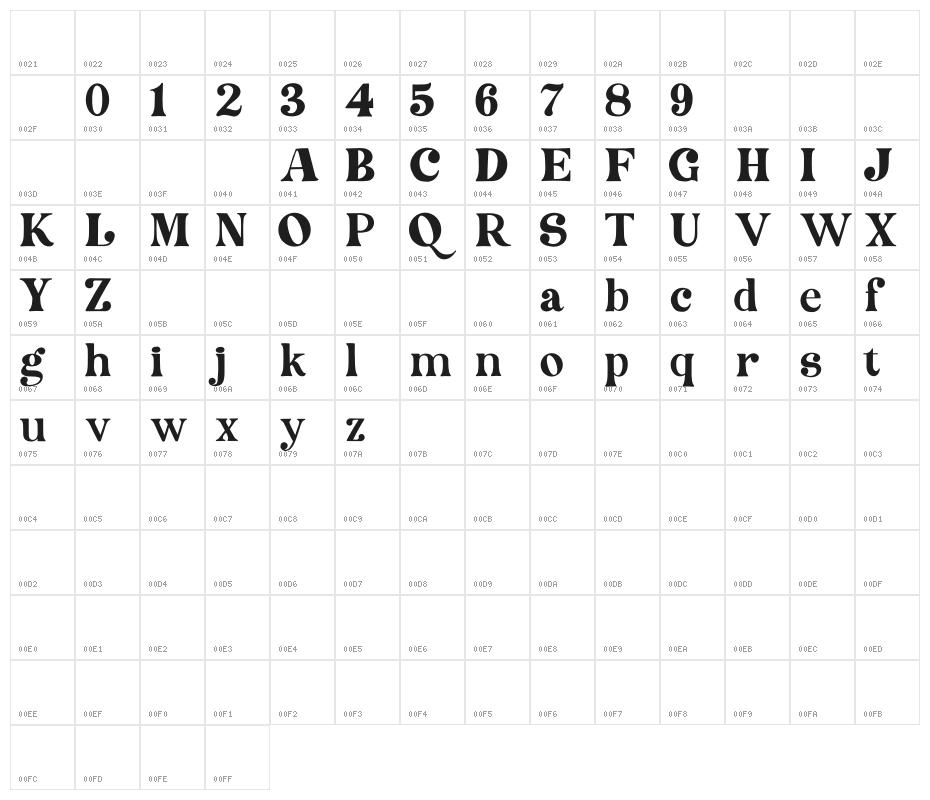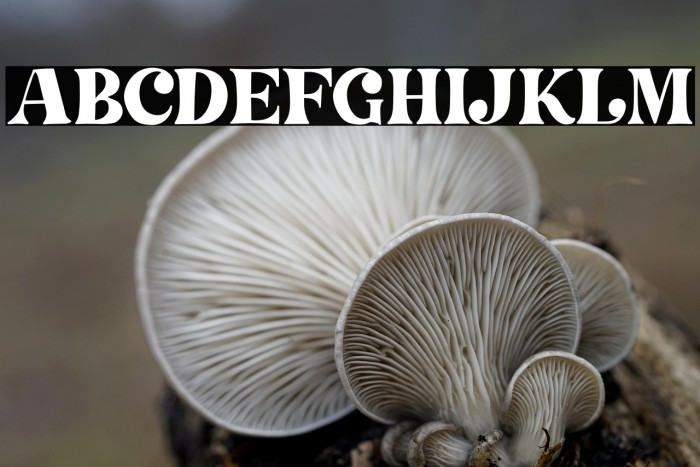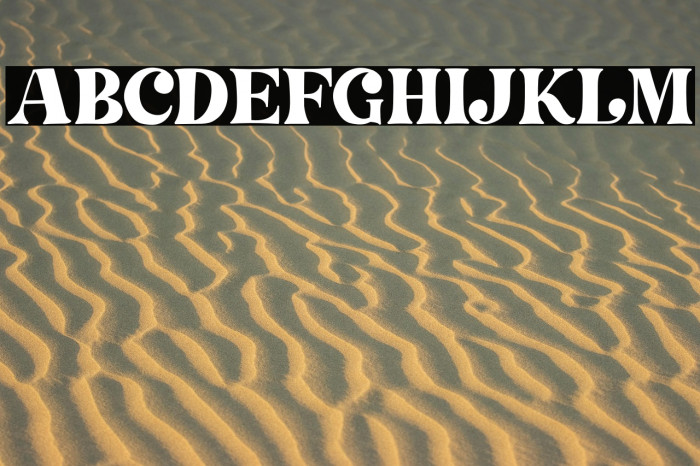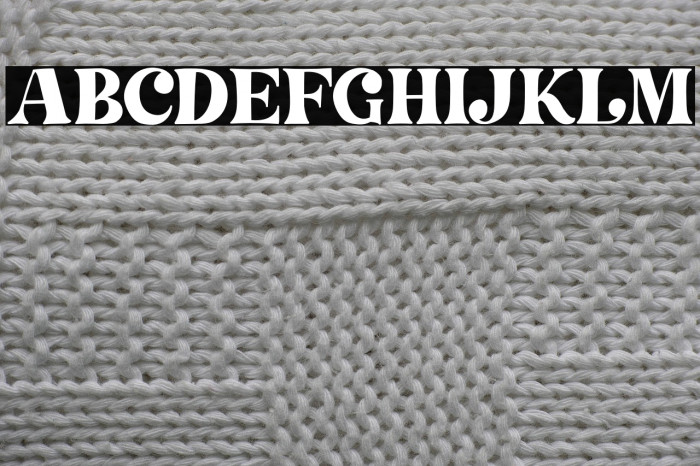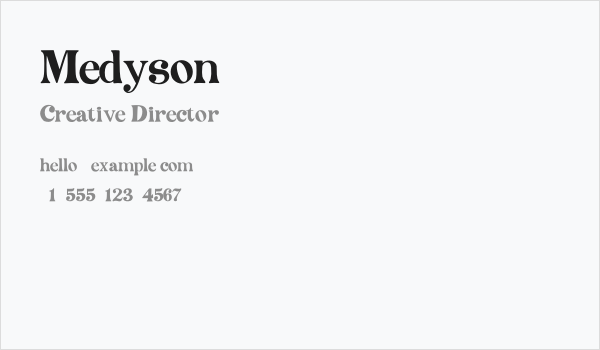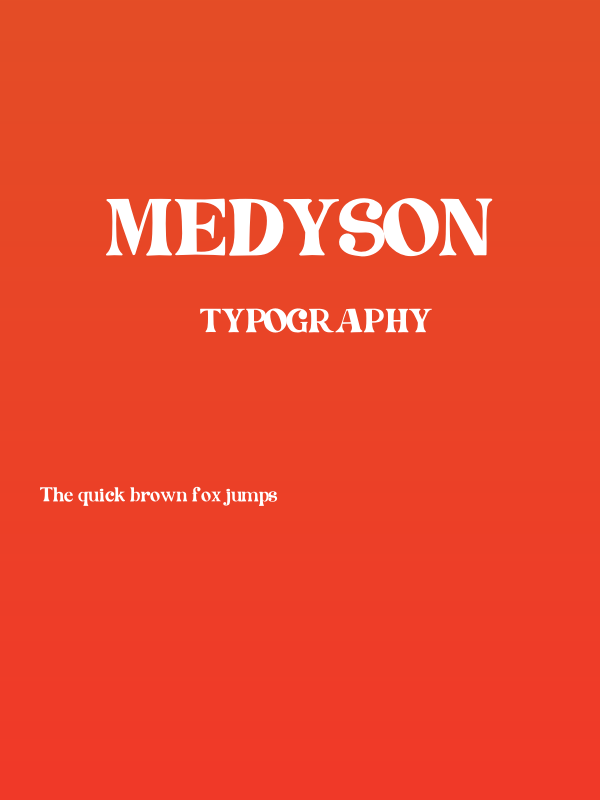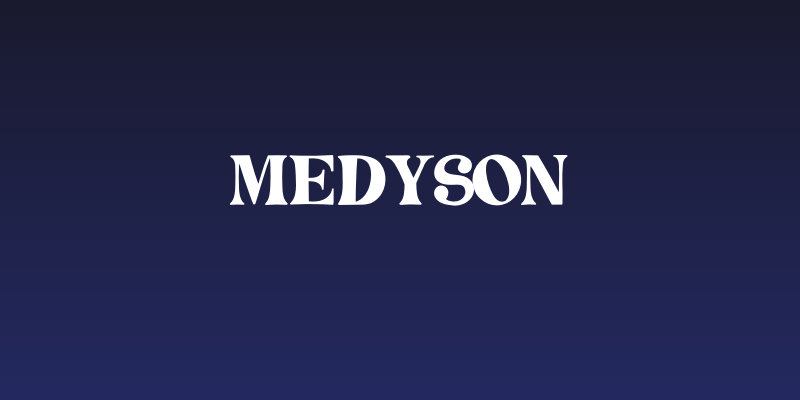
Medyson Font
Medyson Description
This font features a bold and expressive style with a strong presence. The characters are designed with high contrast between thick and thin strokes, giving it a dramatic and eye-catching appearance. The serifs are prominent and add a touch of elegance, while the curves and angles provide a dynamic and energetic feel. This font is ideal for making a statement and capturing attention, with its unique blend of classic and modern elements. The uppercase letters are particularly striking, with their bold forms and distinctive shapes, while the lowercase letters maintain a consistent style that complements the overall design.
Proposed ProjectsPerfect for headlines, branding, posters, and any project that requires a strong visual impact.